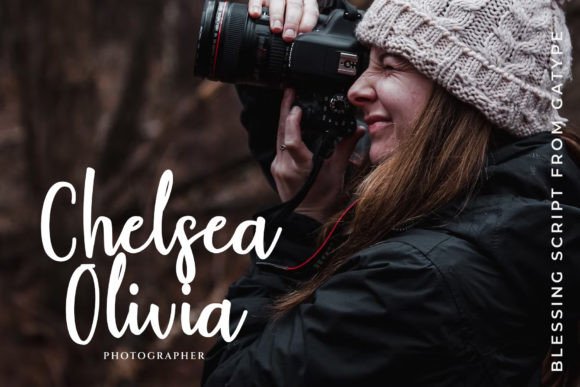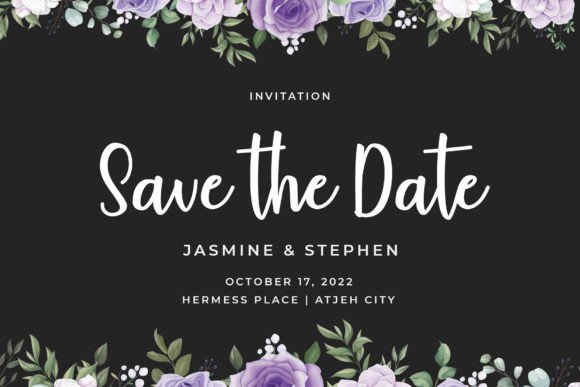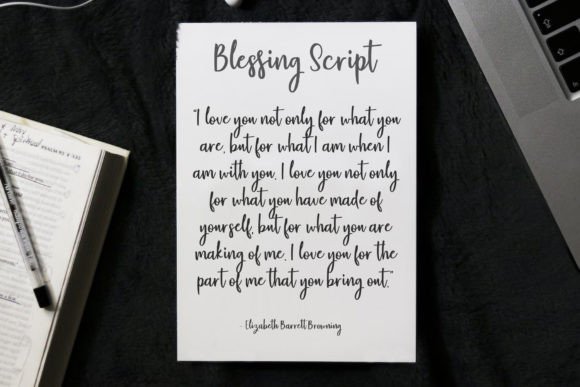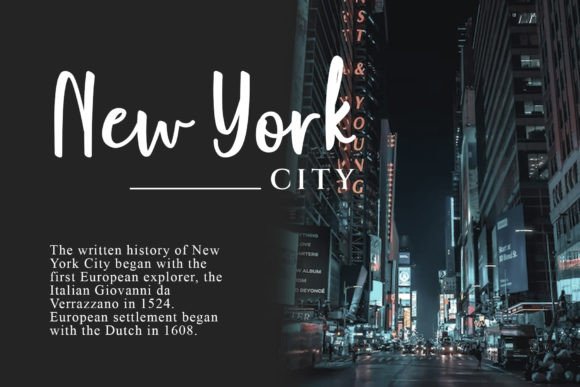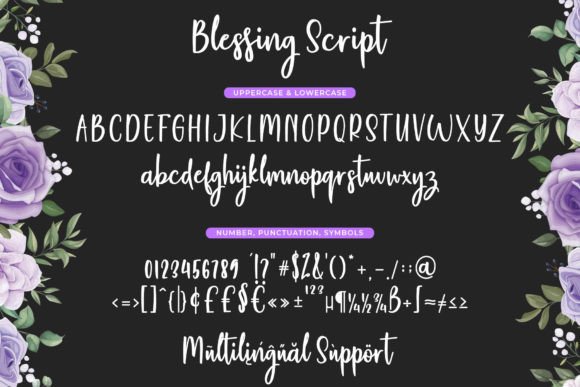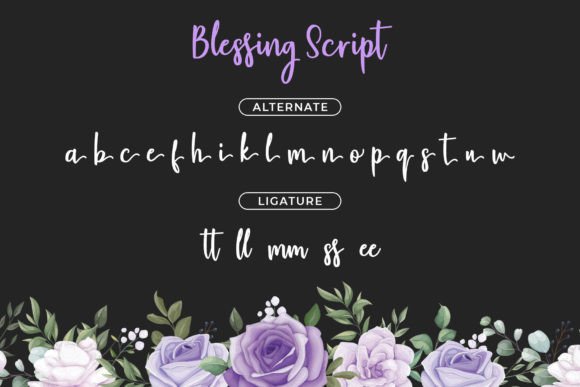
The Blessing Script Font: A Designer’s Dream Come True
I’ll never forget the moment I stumbled upon the Blessing Script font while working on a wedding invitation project. I had been searching for the perfect font for hours, trying out different styles and weights, but nothing seemed quite right. That was until I saw Blessing Script – its elegant, flowing lines and exquisite handwritten details immediately caught my eye. I knew right then and there that I had found the one. In this article, I’ll share my love for this beautiful font, its features, and how to make the most of it in your designs.
• ✨ Exquisite handwritten details that give it a classy, calligraphic feel
• ✅ Contemporary and fresh, yet still maintains traditional elegance
• 💻 PUA encoded for easy access to glyphs and ligatures
• 🎨 Highly versatile and suitable for a wide range of projects, from wedding invitations to branding and packaging
• 🤔 May not be the best choice for very small font sizes, as some details may get lost
• ⚠️ Limited availability of certain characters or symbols, but this can be overcome with glyph exploration
The Designer Inspiration Behind Blessing Script
While the true story behind Blessing Script’s creation may be unknown, it’s easy to imagine a designer sitting at their desk, surrounded by calligraphy books and handwritten notes, pouring their heart and soul into creating a font that would bring joy and elegance to designs. Perhaps they were inspired by the flowing lines of traditional calligraphy, or the imperfections and quirks of handwritten text. Whatever the inspiration, Blessing Script is a true masterpiece that deserves to be celebrated.
What is Blessing Script? Blessing Script is a beautiful, handmade script font with exquisite details and a classy, calligraphic feel.
Is Blessing Script PUA encoded? Yes, Blessing Script is PUA encoded, making it easy to access glyphs and ligatures.